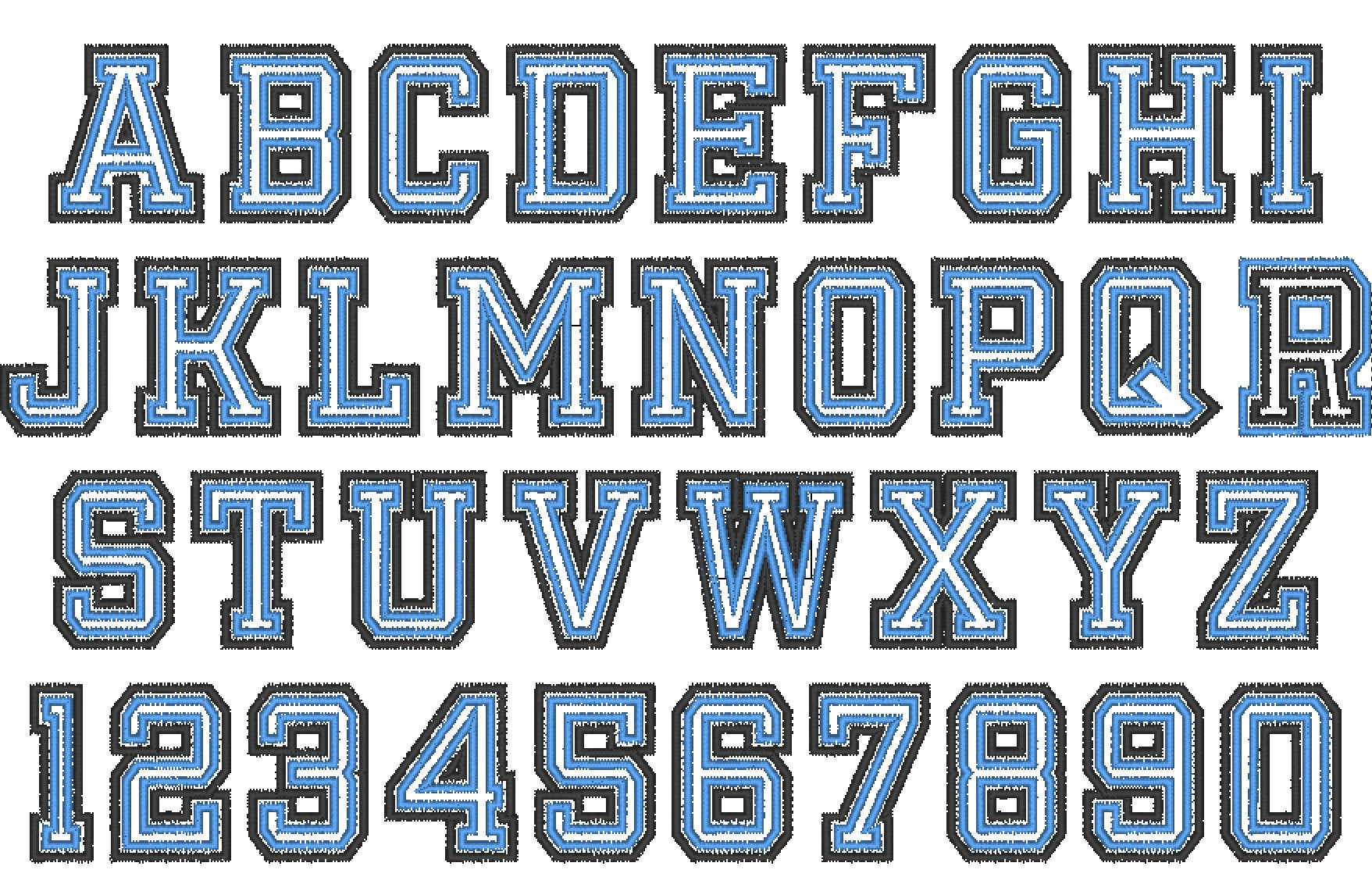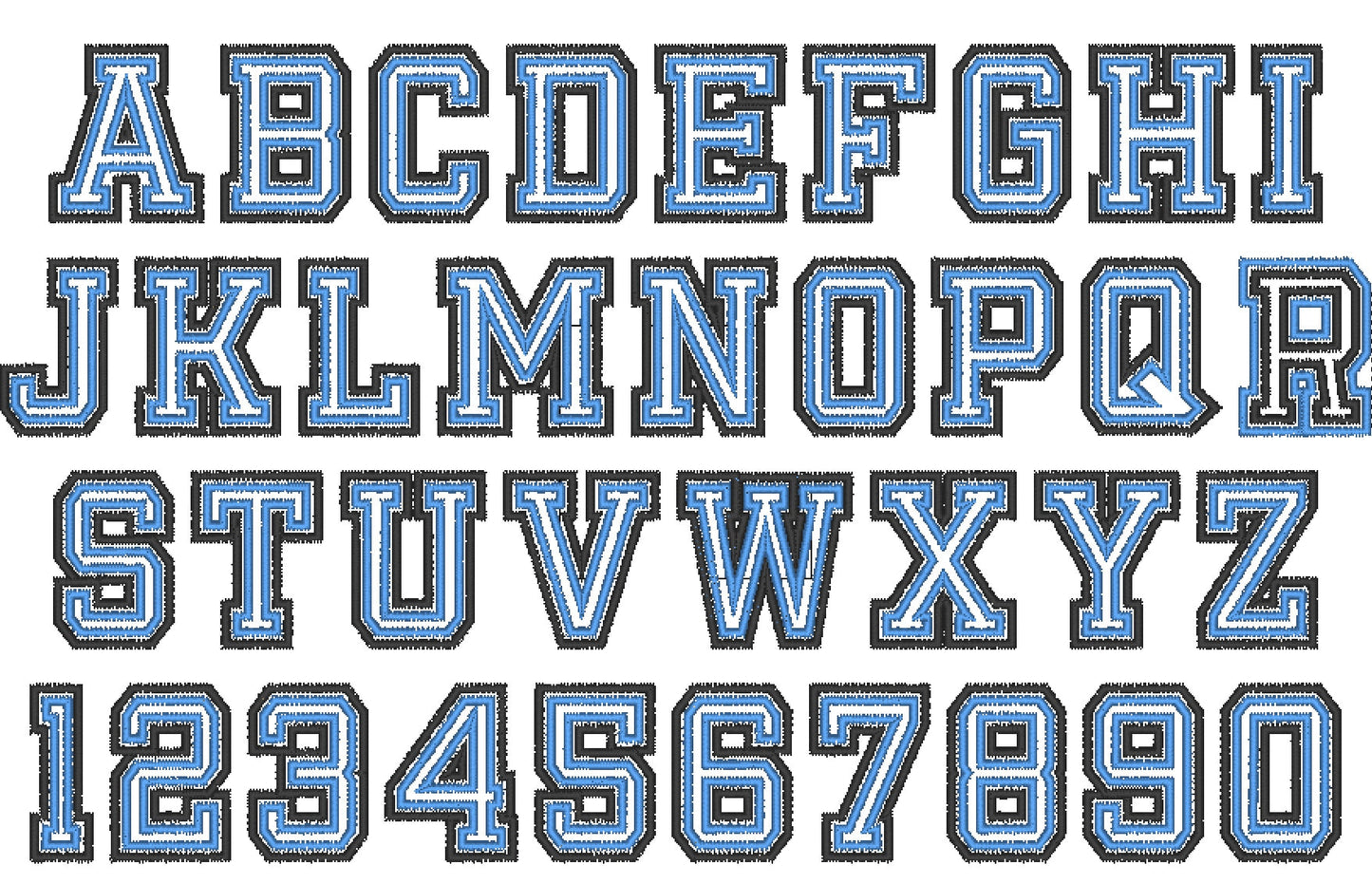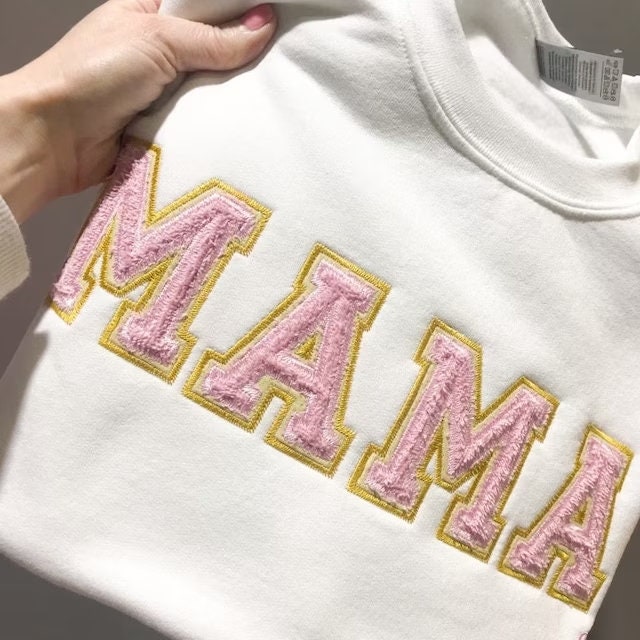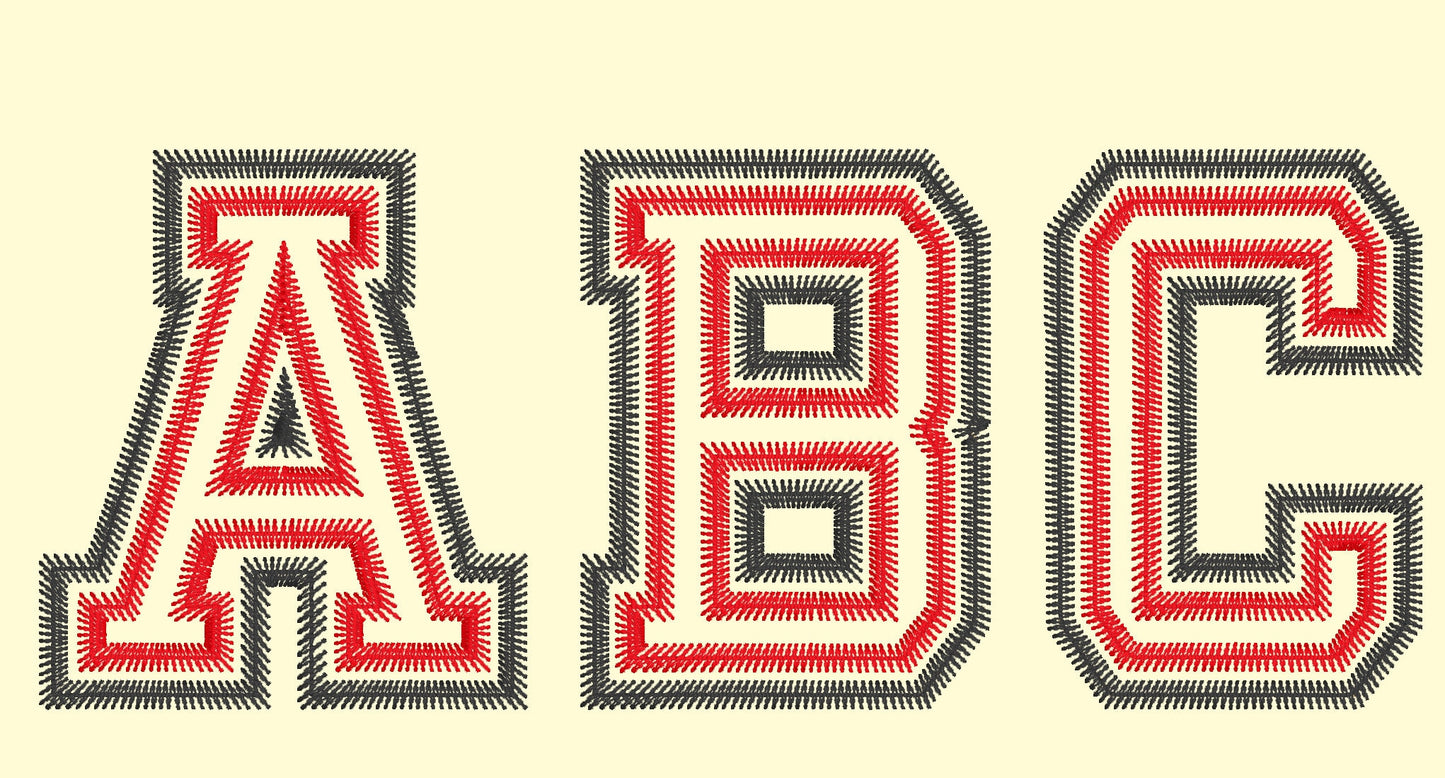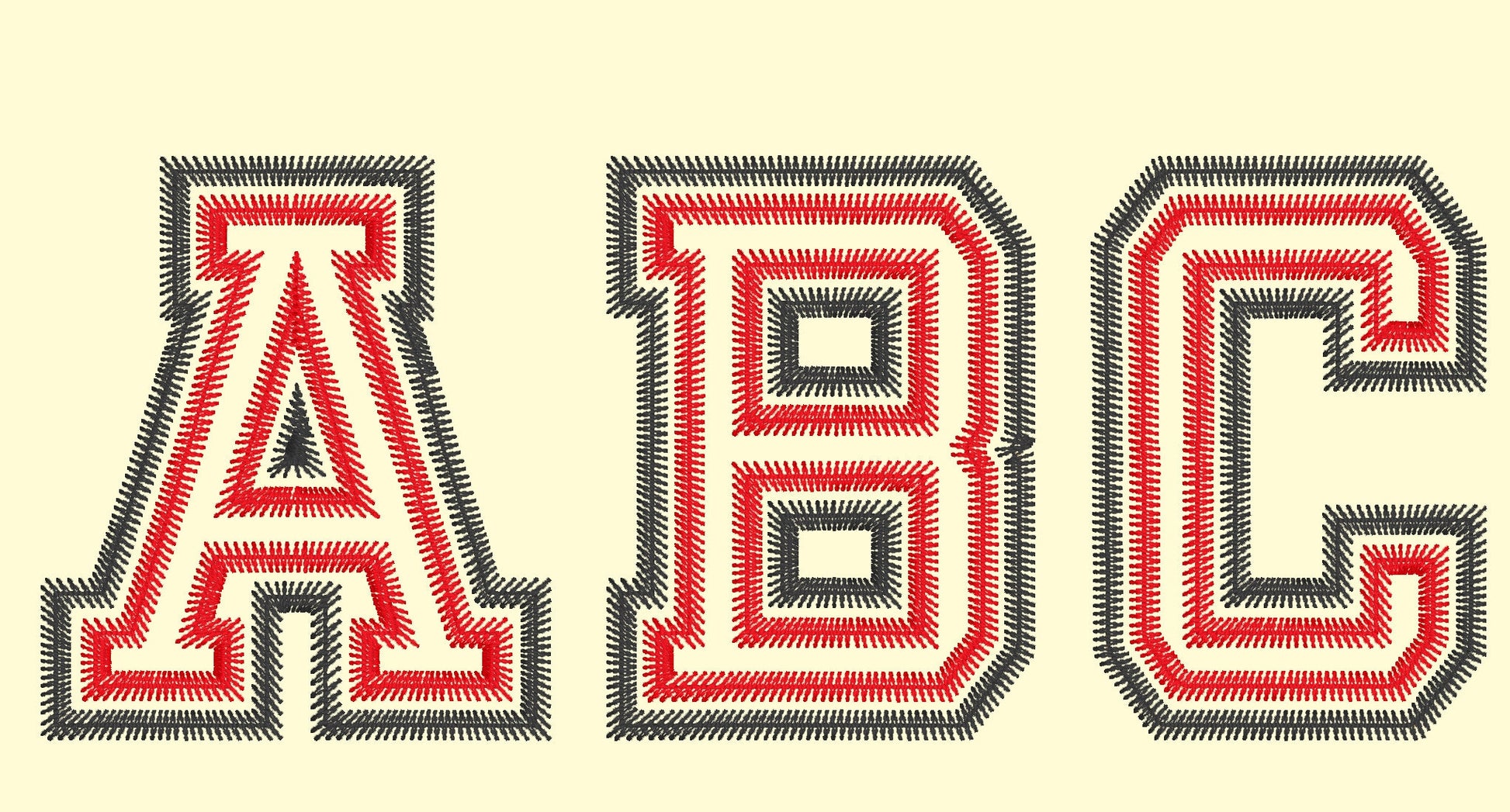
Or click to open the linkA small athletic block font in two applique layers with a light zig-zag finish, for team names and numbers on shirts and hoodies.
Each letter is a two-step applique with a zig-zag edge. Uppercase A to Z and numbers 0 to 9 in four sizes: 2, 2.5, 3 and 3.5 inches.